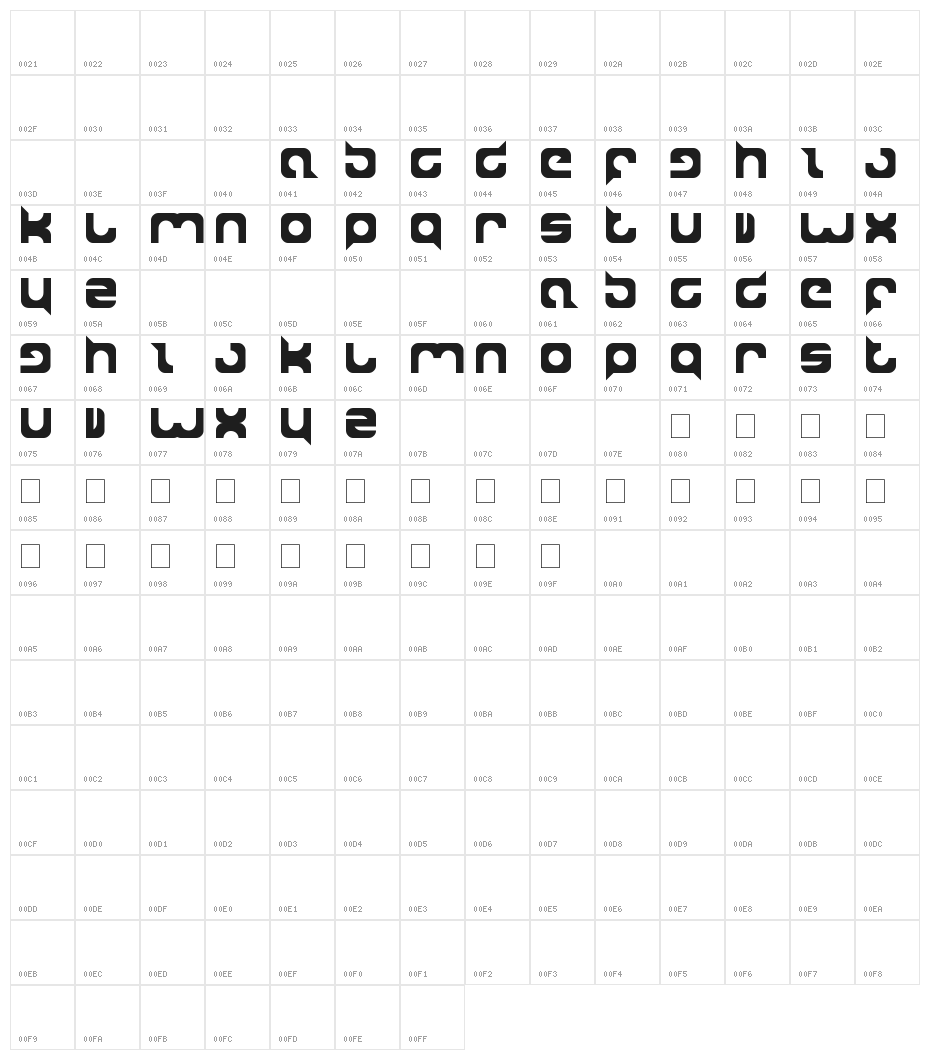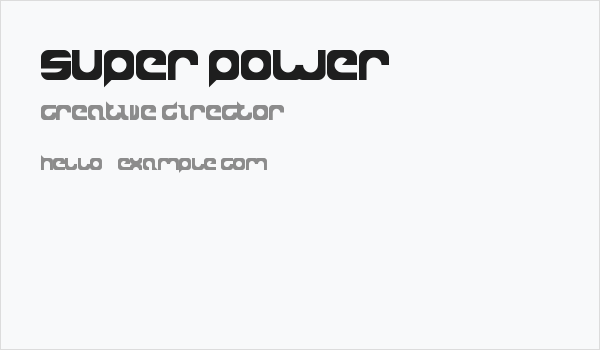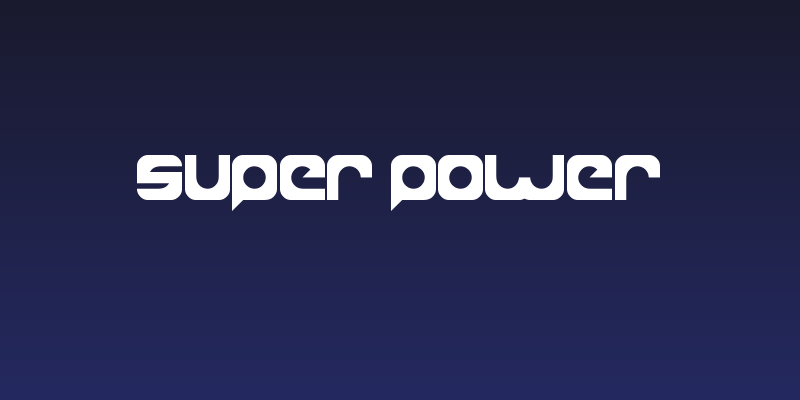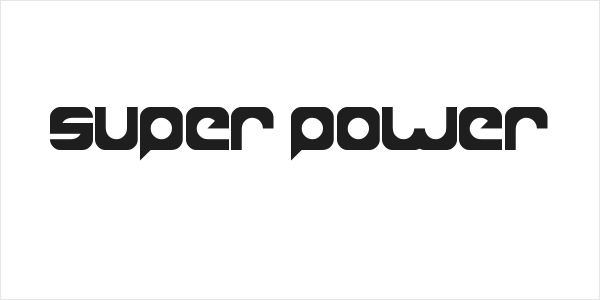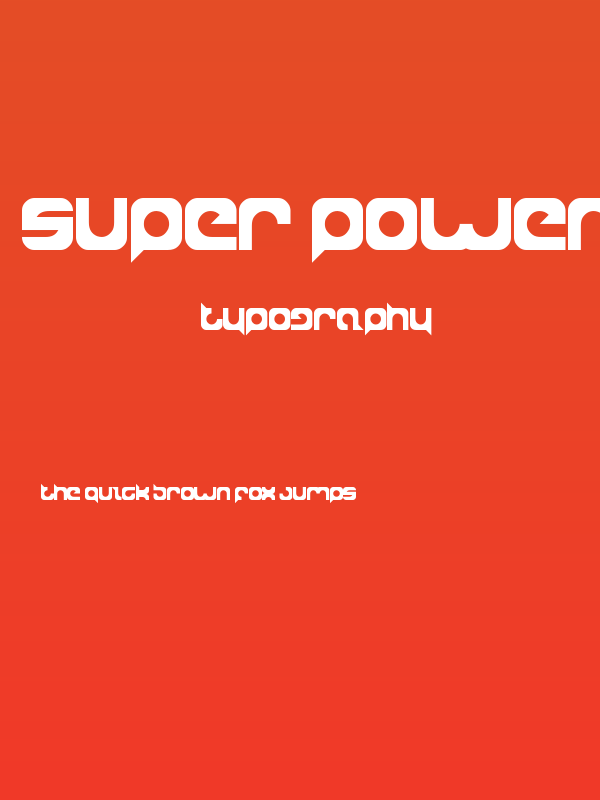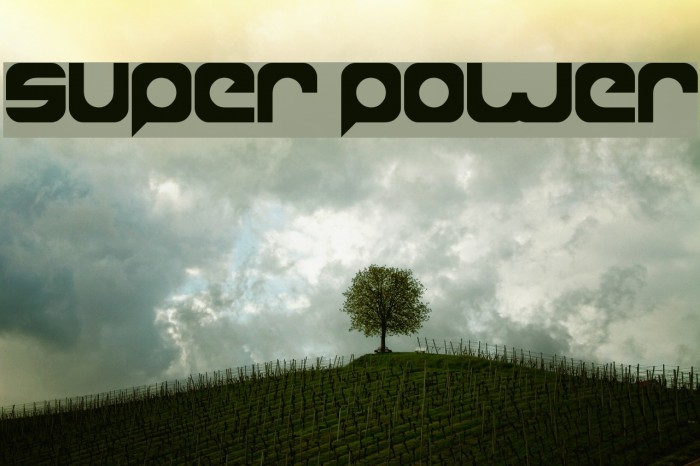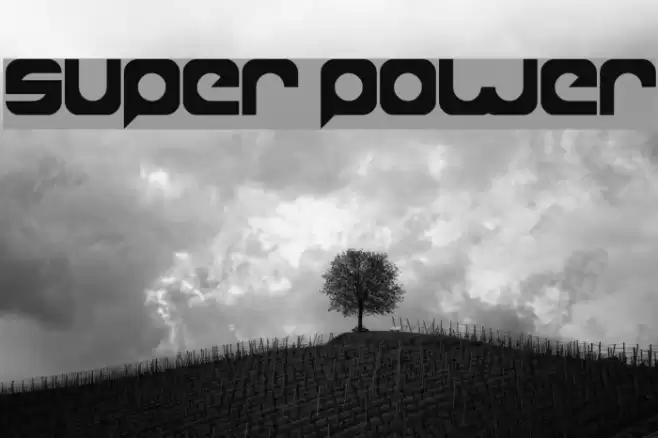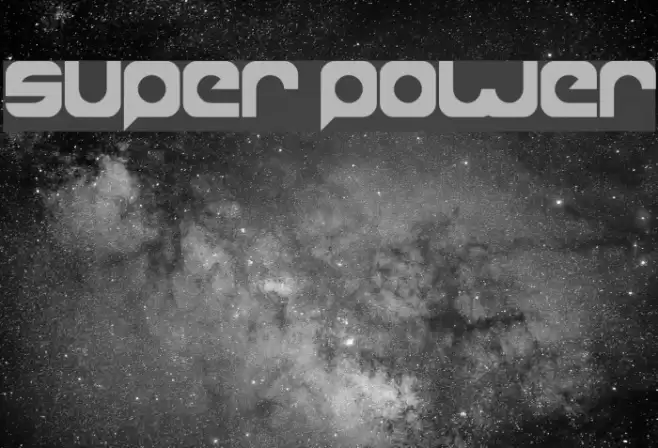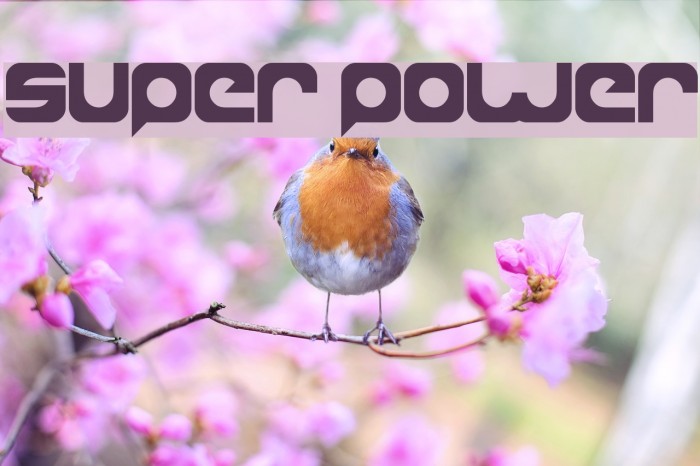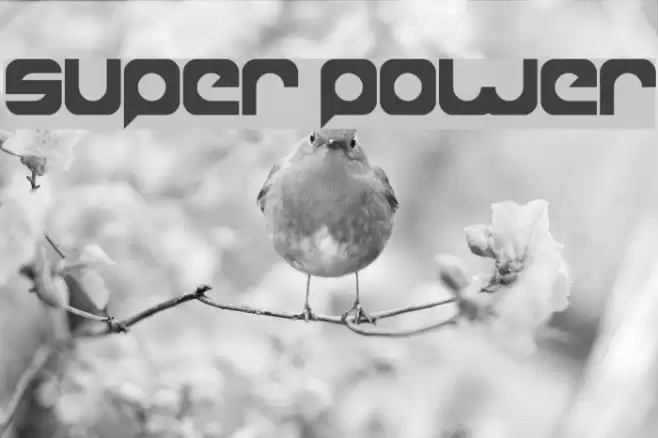
super power Font
super power Description
This font features a bold and futuristic design with sharp angles and geometric shapes. The characters are crafted with a unique style that combines both curves and straight lines, giving it a dynamic and edgy appearance. The uppercase and lowercase letters maintain a consistent height, creating a uniform look across the text. The numbers and special characters follow the same design principles, ensuring a cohesive visual identity. This font is ideal for projects that require a modern and impactful aesthetic, such as technology branding, sci-fi themes, or innovative product designs.
| Proposed Projects | Ideal for technology branding, sci-fi themes, and innovative product designs. |